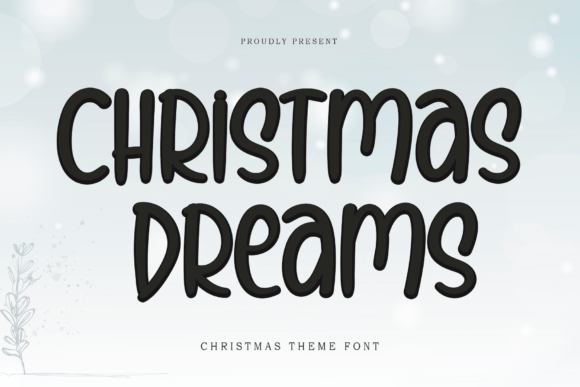
Introducing Christmas Dreams Font: The Ultimate Holiday Companion for Designers and Crafters
Are you on the hunt for a font that captures the essence of the holiday season? Look no further than Christmas Dreams Font! This adorable, handwritten font is perfect for adding a touch of festive cheer to your designs, whether you’re creating Instagram posts, DIY projects, or holiday cards. With its incredibly friendly feel, Christmas Dreams Font is sure to turn any creative idea into a true piece of art.
As a designer or crafter, you’re always on the lookout for fonts that can help you bring your creative vision to life. Christmas Dreams Font is a versatile and charming font that can be used for a wide range of projects. Whether you’re designing social media graphics, crafting holiday cards, or creating festive decorations, this font is sure to become your go-to choice.
One of the best things about Christmas Dreams Font is its unique, handwritten feel. Unlike traditional fonts, which can often feel stiff and formal, Christmas Dreams Font has a warm, inviting quality that makes it perfect for holiday designs. Its casual, laid-back vibe is sure to put a smile on your face and get you in the holiday spirit!
What Makes Christmas Dreams Font So Special?
So what sets Christmas Dreams Font apart from other fonts on the market? Here are just a few things that make it so special:
- Cute and Casual: Christmas Dreams Font has a playful, carefree feel that’s perfect for holiday designs. Its casual vibe makes it ideal for creating festive graphics, social media posts, and DIY projects.
- Handwritten with Love: This font was carefully crafted with love and attention to detail, giving it a unique, human touch that’s hard to find in digital fonts.
- Festive and Fun: Christmas Dreams Font is designed to capture the magic and wonder of the holiday season. Its festive feel makes it perfect for creating holiday cards, decorations, and gifts.
- Versatile and Adaptable: Whether you’re designing for Instagram, crafting holiday cards, or creating festive decorations, Christmas Dreams Font is the perfect choice. Its versatility makes it easy to use in a wide range of projects.
How to Use Christmas Dreams Font in Your Designs
Now that you’ve fallen in love with Christmas Dreams Font, you’re probably wondering how to use it in your designs. Here are a few ideas to get you started:
- Instagram Graphics: Use Christmas Dreams Font to create festive Instagram graphics, including holiday-themed posts, stories, and reels.
- Holiday Cards: Add a personal touch to your holiday cards with Christmas Dreams Font. Its handwritten feel makes it perfect for creating heartfelt, handmade cards.
- DIY Projects: Use Christmas Dreams Font to add a festive touch to your DIY projects, including holiday decorations, gift tags, and wrapping paper.
- Calligraphy Scripts: Experiment with Christmas Dreams Font as a calligraphy script for your DIY projects. Its elegant, cursive feel makes it perfect for creating beautiful, handmade designs.
Christmas Dreams Font is a one-of-a-kind font that’s sure to become your go-to choice for holiday designs. Its cute, casual feel and festive vibe make it perfect for adding a touch of holiday cheer to your designs. Whether you’re a designer, crafter, or DIY enthusiast, Christmas Dreams Font is the ultimate holiday companion. So why wait? Download Christmas Dreams Font today and start creating your own festive masterpieces!
With Christmas Dreams Font, the possibilities are endless. Whether you’re designing for Instagram, crafting holiday cards, or creating festive decorations, this font is sure to bring your creative vision to life. So go ahead, get creative, and make this holiday season one to remember!